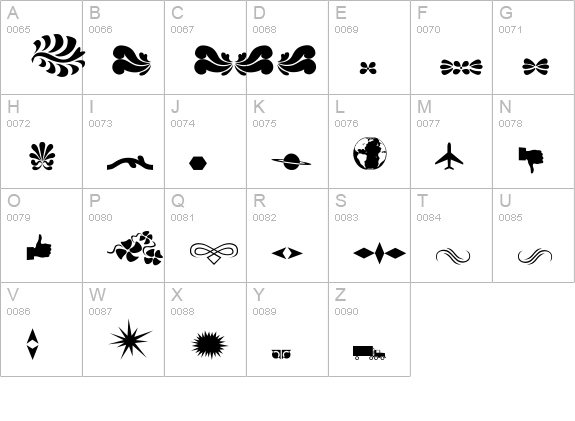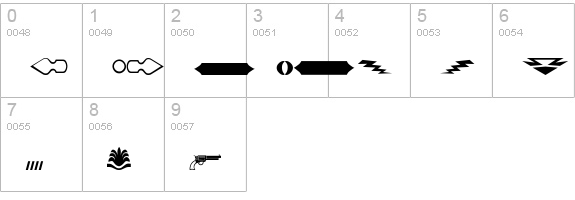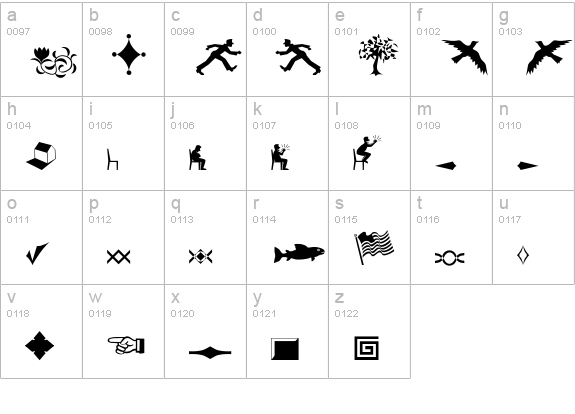
Dingbat2 Font Details
Dingbat2 font is a whimsical and playful typeface perfect for adding a touch of fun and creativity to your projects. This font features a wide range of unique and decorative symbols and icons that can be used to enhance your designs. From quirky arrows to charming ornaments, Dingbat2 offers a versatile collection of characters that will surely make your work stand out. The best part is that Dingbat2 font is completely free to download! You can get your hands on this delightful font at FontsMarket.com and start incorporating its delightful elements into your designs today. Whether you're working on a poster, invitation, or any other creative project, Dingbat2 font is sure to add a touch of charm and personality. Download Dingbat2 font now and let your imagination run wild with its delightful characters!